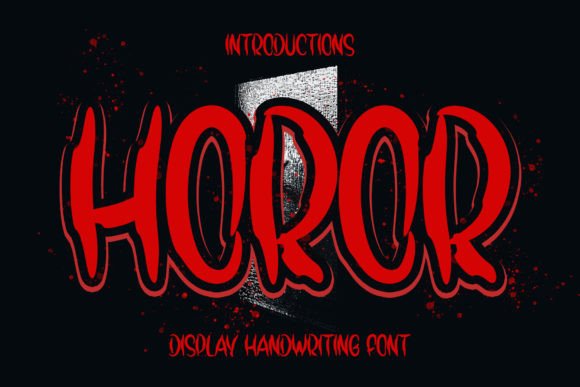
Step into the world of Horor, a display font family that exudes coolness and modernity. This handwritten gem is meticulously crafted by YanStudio, making it perfect for those seeking to add a touch of sophistication and flair to their designs. Whether you're a seasoned designer or just starting out, Horor is your gateway to creating spectacular designs.
Unleash your creativity and let Horor take center stage in your projects. Its unique and captivating style is ideal for magazines, crafts, and other projects where individuality and visual impact are paramount. Transform your designs into eye-catching masterpieces that resonate with your audience.
With Horor, the possibilities are endless. Its bold and confident strokes make it a standout choice for headings, posters, and branding materials. Elevate your designs with a font that commands attention and leaves a lasting impression.
Embrace the versatility of Horor and witness how effortlessly it adapts to different design aesthetics. Its carefully crafted characters blend seamlessly with various design styles, from classic and timeless to contemporary and edgy. Experiment fearlessly and let Horor bring your design vision to life.
Don't settle for ordinary fonts that fail to make a statement. Choose Horor, the font that empowers you to create designs that captivate and inspire. Its modern and stylish appearance will set your work apart from the crowd, ensuring that your message is delivered with impact and elegance.
Join the growing community of designers who have discovered the allure of Horor. Let your creativity soar and experience the joy of creating designs that turn heads and leave an indelible mark on your audience.